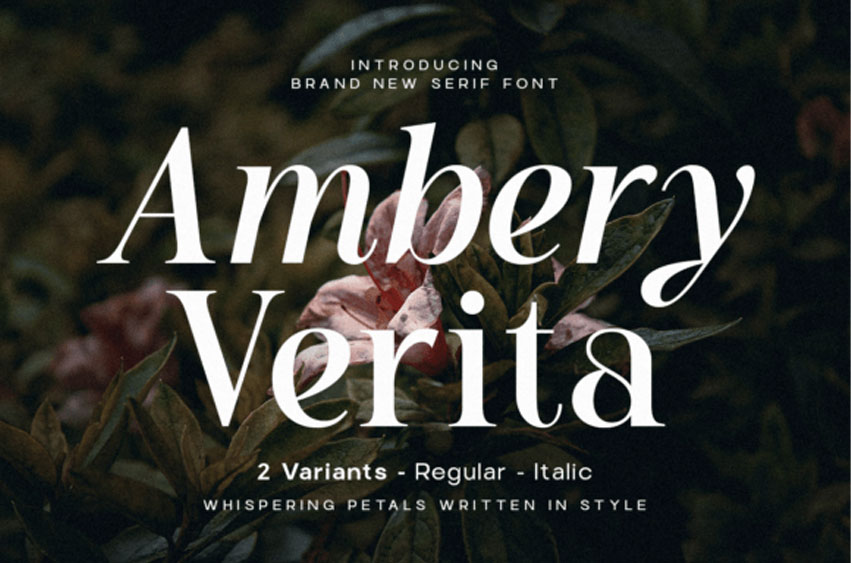
Ambery Verita Font
Ambery Verita Font is a romantic high-contrast serif made for luxury branding, weddings, and editorial design.
Say hello to Ambery Verita, an elegant serif typeface crafted for designers who love refined curves and expressive contrast. With Regular and Italic styles, Ambery Verita brings timeless sophistication to branding, wedding stationery, magazines, and modern lifestyle visuals. Its smooth flow and editorial elegance make it perfect for designers seeking a stylish serif that feels both classic and contemporary.
Crafted for designers who appreciate refined curves and expressive contrast, this font brings timeless sophistication to any project. It includes Regular and Italic styles and is perfect for luxury branding, wedding stationery, magazines, and modern lifestyle visuals.
Perfect For: Luxury branding, wedding invitations, fashion lookbooks, magazine titles, packaging, quotes, and social media posts.